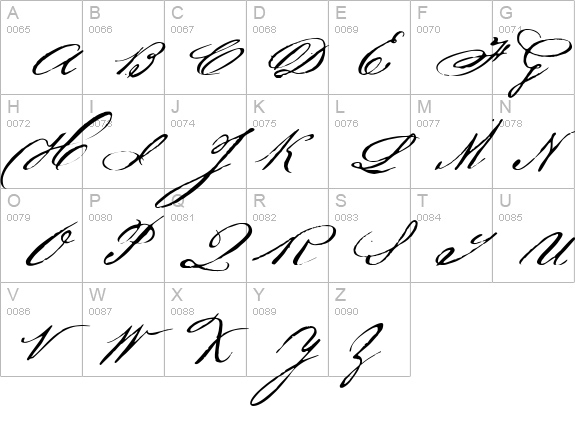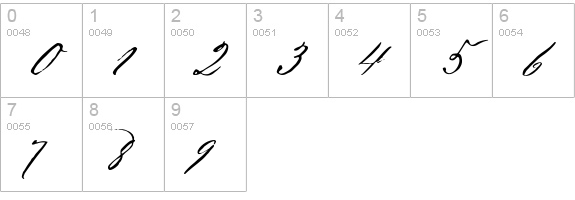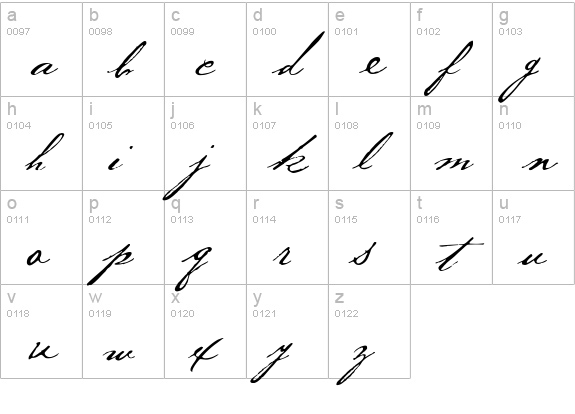
BakerScript Font Details
BakerScript is a charming and whimsical font that brings a touch of handwritten elegance to any project. Its flowing strokes and playful curves make it perfect for adding a personal and creative touch to invitations, greeting cards, posters, and more. This font captures the essence of a skilled baker's script, making it ideal for culinary-themed designs or any project where you want to convey warmth and friendliness. Best of all, BakerScript is available for free download at FontsMarket.com. This means you can easily access this delightful font and start using it in your designs right away. Whether you're a professional designer looking for a unique typeface or someone who simply loves experimenting with different fonts, BakerScript is sure to inspire and delight. Download it now and let your creativity soar with this charming and versatile font!